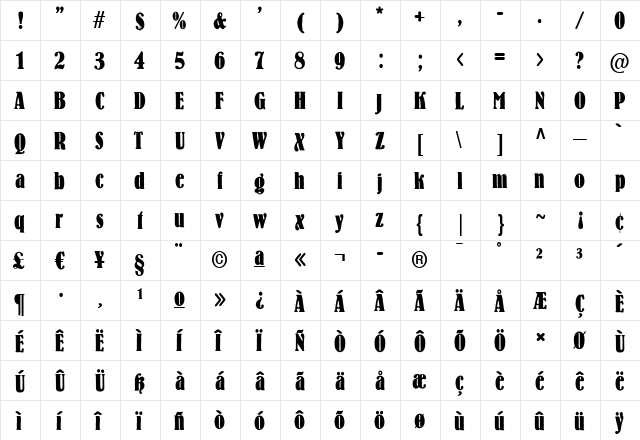
VanessaBecker Regular
Design Context for VanessaBecker Typeface
VanessaBecker offers clean, dependable letterforms without strong stylistic allegiance, making it a practical choice for designers who need flexibility.
Pro Tip: Pair VanessaBecker with a font of contrasting weight or personality to build a more expressive typographic hierarchy.